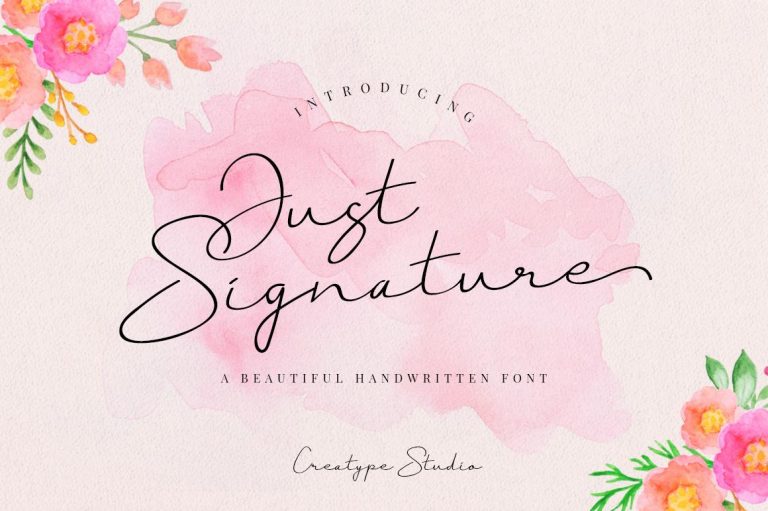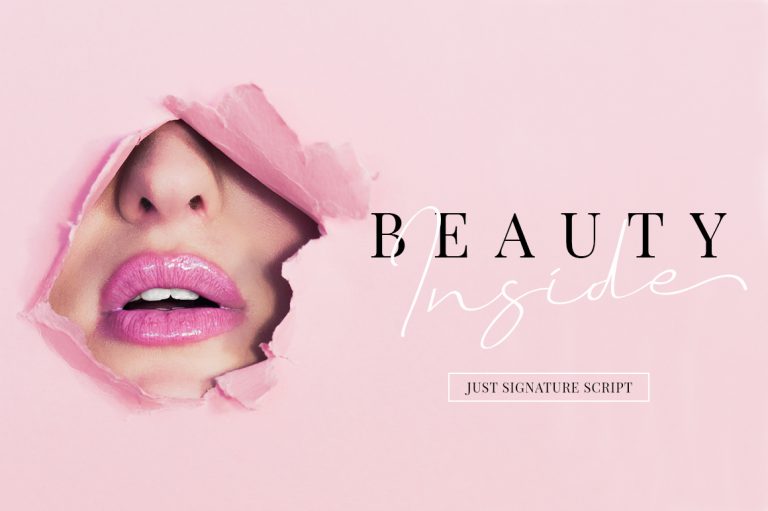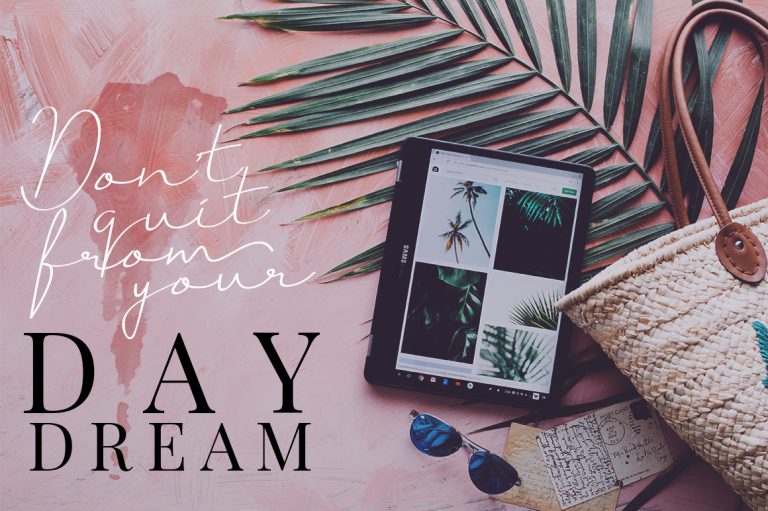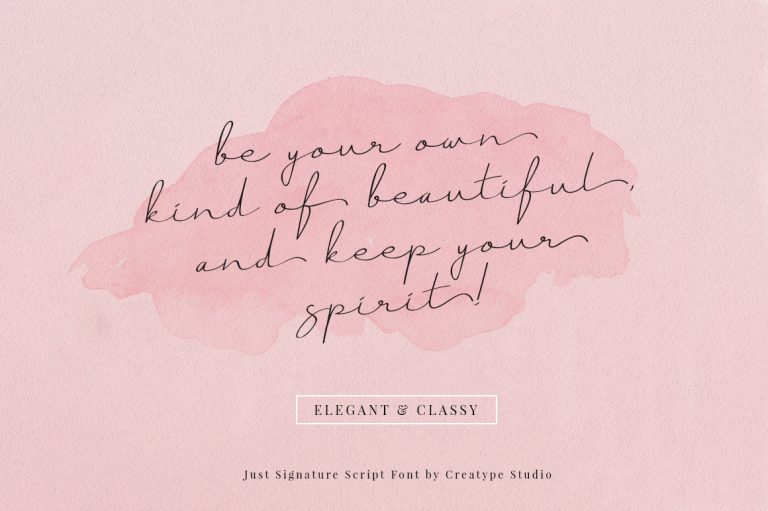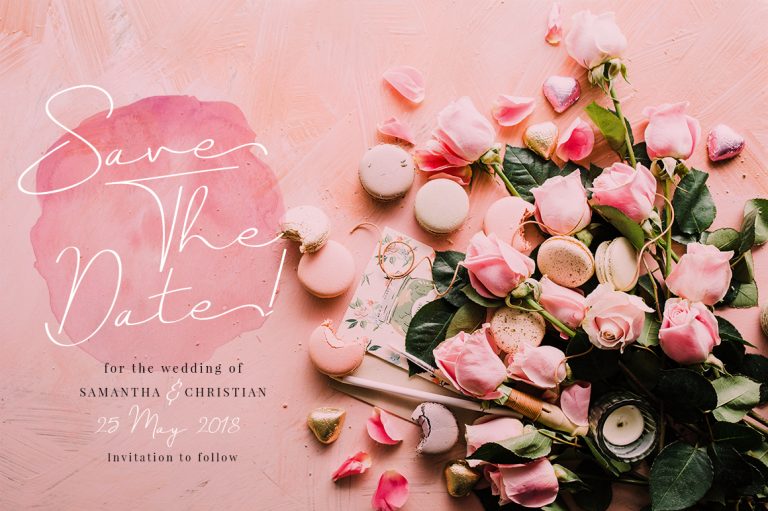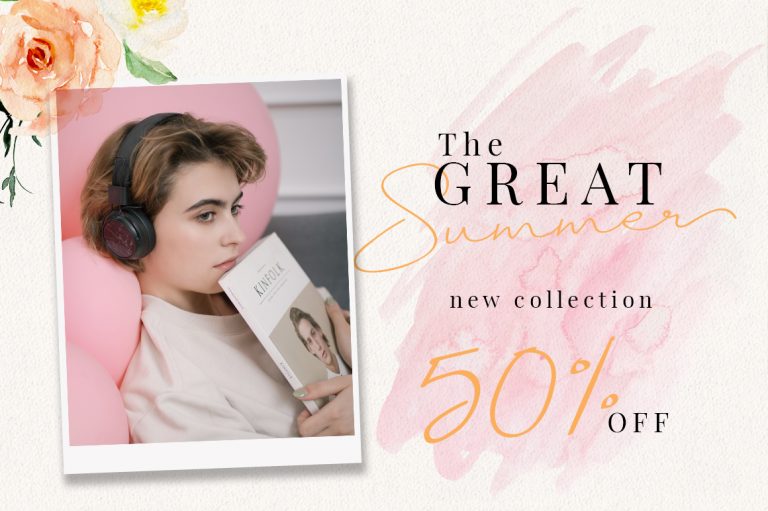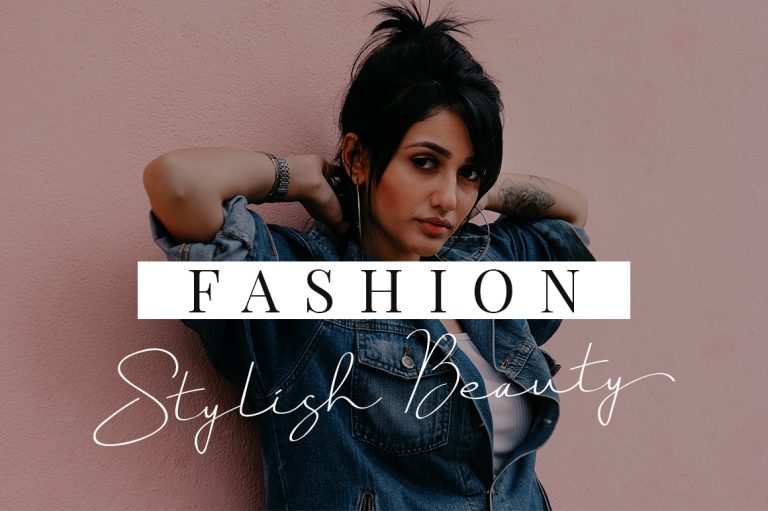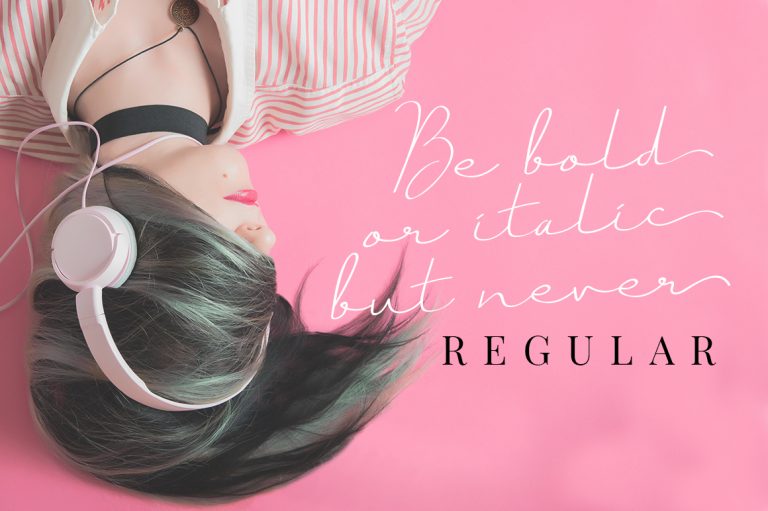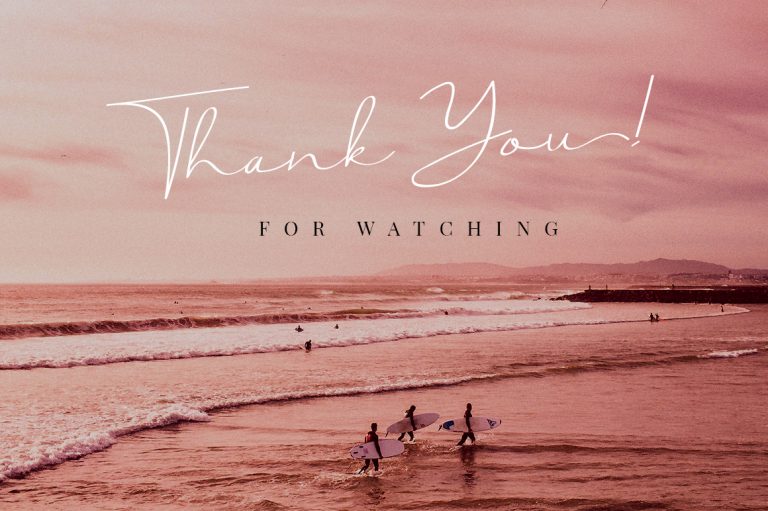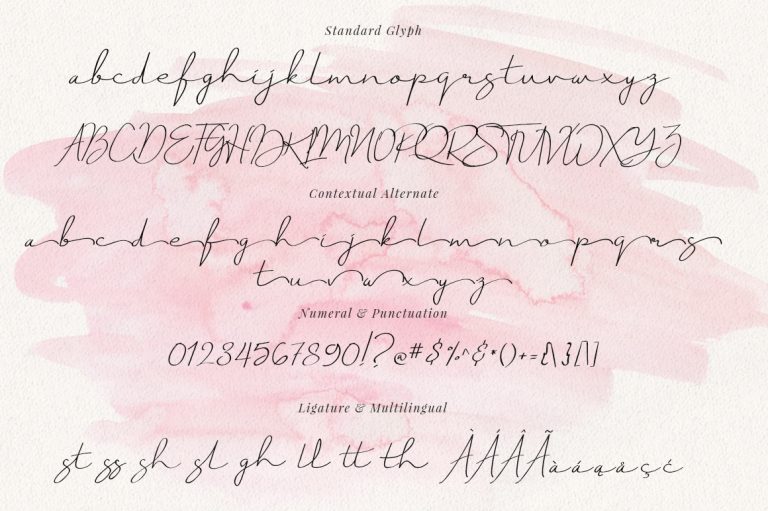
Presenting Just Signature – a new modern & fresh script with a stylish handwritten and script style make this font looks natural, classy and perfect for any awesome projects that need handwriting taste.
Just Signature would perfect for photography, watermark, social media posts, advertisements, logos & branding, invitation, product designs, label, stationery, wedding designs, product packaging, special events or anything that need handwriting taste.
- Ton of glyphs (include Uppercase, Lowercase, Numerals & Punctuations, Ligature, Swashes)
- Ligature & Stylistic alternate
- Fonts include multilingual support for; Afrikaans, Albanian, Catalan, Danish, Dutch, English, French, Hungarian, Icelandic, Italian, Spanish, Portuguese, German, Swedish, Norweigen, Polish, Indonesian, Turkish, Zulu
Just Signature Script